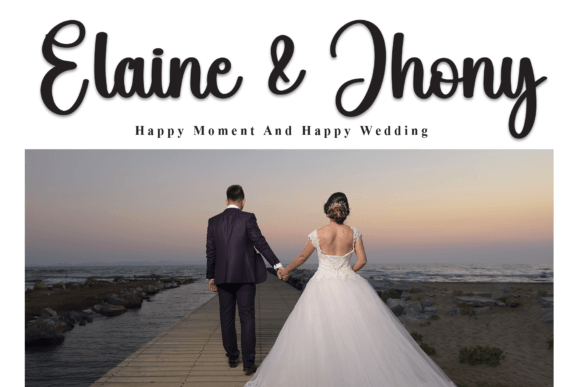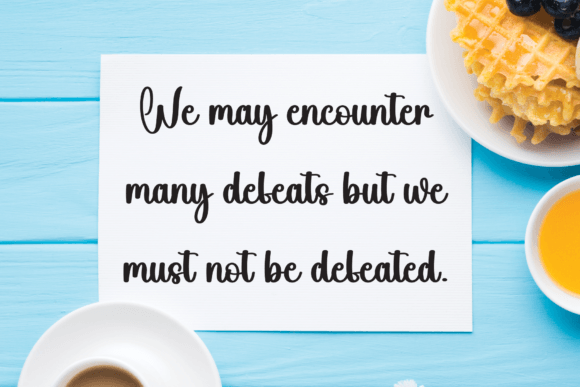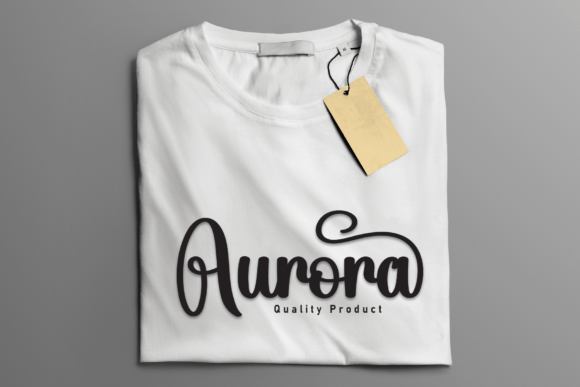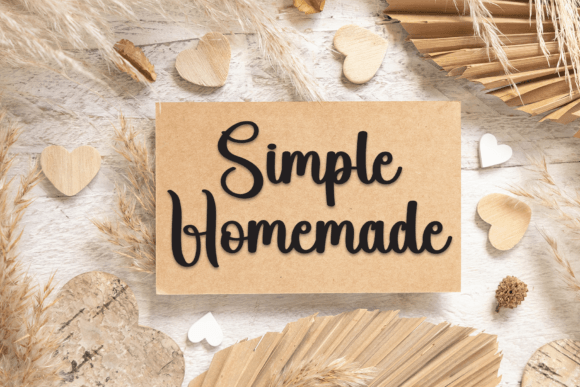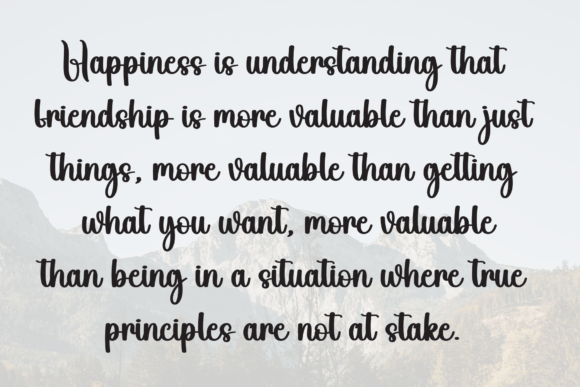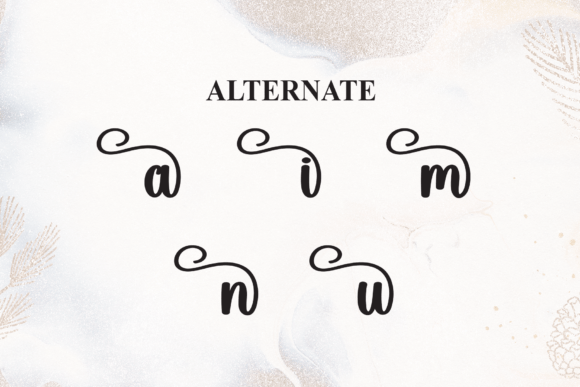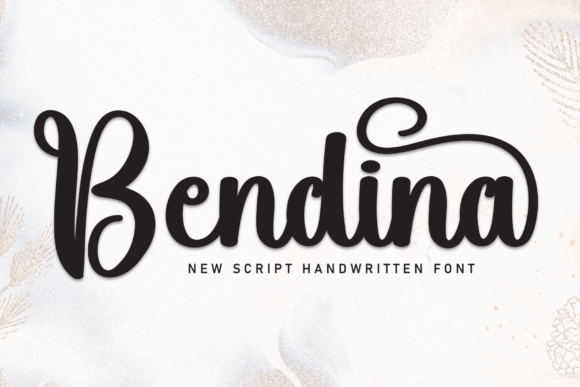
Bendina Font: The Perfect Handwritten Display Font for Your Creative Projects
Are you looking for a font that can add a touch of elegance and playfulness to your creative projects? Look no further than Bendina, a delightful handwritten display font that is sure to charm your audience. With its perfect balance of tenderness and playfulness, Bendina is the ideal choice for designers and crafters who want to breathe life into their work.
The Characteristics of Bendina Font
Bendina is a carefully crafted font that exudes a sense of fun and approachability. Its delicate, personalized strokes are designed to capture the hearts of your audience, making it perfect for projects that require a touch of whimsy and romance. Whether you’re creating wedding invitations, branding materials, or social media graphics, Bendina is the perfect choice.
Why Choose Bendina Font?
So, what sets Bendina apart from other fonts? Here are just a few reasons why Bendina is a leading choice for designers and crafters:
- Unique and eye-catching design: Bendina’s handwritten display font is unlike anything you’ve seen before. Its unique design is sure to grab attention and leave a lasting impression on your audience.
- Perfect balance of tenderness and playfulness: Bendina strikes the perfect balance between tenderness and playfulness, making it suitable for a wide range of projects, from wedding invitations to social media graphics.
- Delicate, personalized strokes: Bendina’s delicate, personalized strokes add a touch of elegance and sophistication to any project.
- Easy to read and understand: Despite its elegant design, Bendina is easy to read and understand, making it perfect for projects that require clear communication.
Using Bendina Font for Wedding Invitations
Wedding invitations are one of the most popular uses for Bendina font. Its delicate, personalized strokes and whimsical design make it perfect for capturing the romance and elegance of a wedding. Whether you’re designing invitations for a formal or informal wedding, Bendina is sure to impress.
Here are a few tips for using Bendina font for wedding invitations:
- Pair with a simple background: Bendina’s elegant design is sure to take center stage, so pair it with a simple background to avoid overwhelming the invitation.
- Use a complementary font for details: While Bendina is perfect for the main text, consider using a complementary font for details like the date, time, and location.
- Add a touch of whimsy: Bendina’s playful design makes it perfect for adding a touch of whimsy to your wedding invitation. Consider adding a few decorative elements, like ribbons or flowers, to give it a personal touch.
Tips for Using Bendina Font in Your Creative Projects
While Bendina is perfect for wedding invitations, it’s also a versatile font that can be used in a wide range of creative projects. Here are a few tips for using Bendina font in your next project:
- Experiment with different colors: Bendina’s elegant design looks great in a variety of colors. Experiment with different colors to find the perfect one for your project.
- Pair with other fonts: Bendina can be paired with a variety of other fonts to create a unique and eye-catching design.
- Use it for headings and titles: Bendina’s bold, playful design makes it perfect for headings and titles. Use it to add a touch of elegance and sophistication to your project.